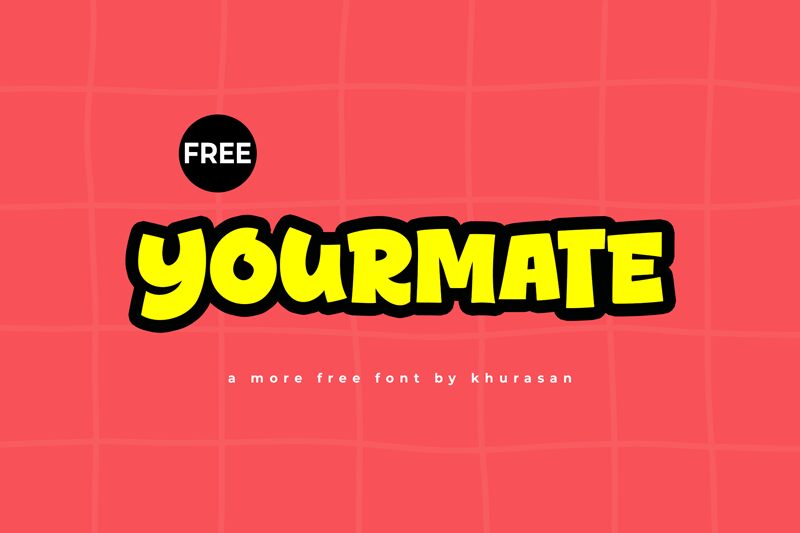
Yourmate
Yourmate font by Khurasan is a bold display typeface with a cartoon style. This retro-inspired font possesses chunky letters with irregular proportions and exaggerated curves. A casual feel is thus delivered in a friendly way in its capital letter characters.
This free display font is ideal for poster designs, books covers, movie titles, social media banners, mug and t-shirt prints, package designs, and much more!